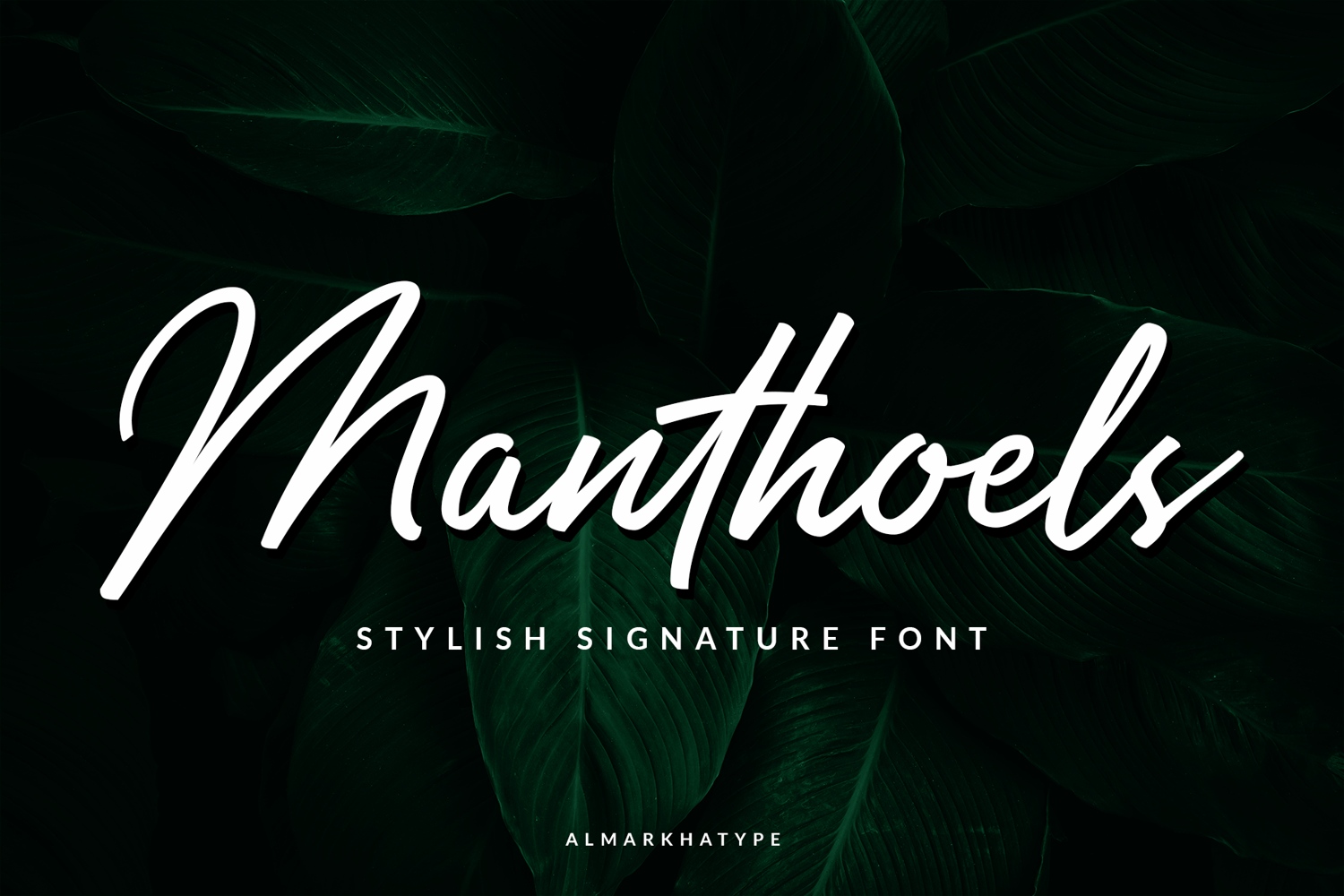
Manthoels - Stylish Signature
Introducing the new ‘Manthoels’ Stylish Signature font – A fashionable and super-chilled new handwriting font script with some sexy stylish
Signature font was created to look as close to a natural handwritten script With built in Opentype features, this script comes to life as if you are writing it yourself. very natural writing techniques that look beautiful and elegant, this font is very suitable to be used to brand a product because if we write a brand name will look like our company signature. this is perfect for bloggers, magazines, fashion, wedding invitations, greeting cards .